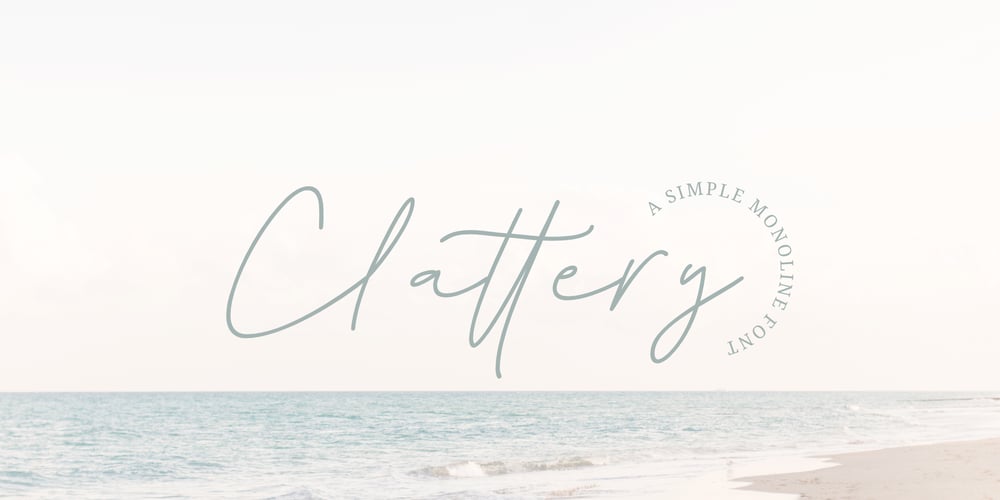
Clattery Font Family was designed by Ali Hamidi and published by Ali Hamidi. Clattery contains 2 styles and family package options. Clattery is a simple monoline script font. It features an incredibly classy style, while still keeping a friendly feel. Clattery is the perfect font for making original and outstanding designs.